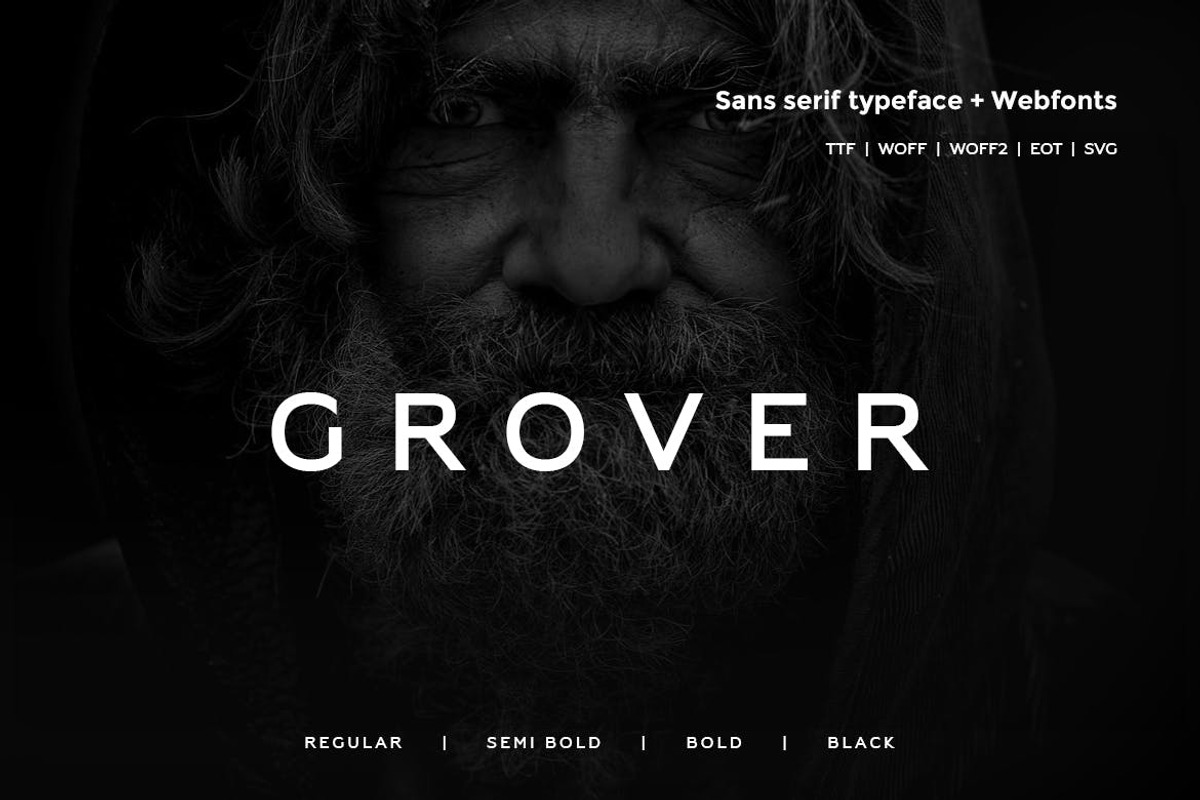
Grover - Typeface + WebFont
Grover Sans is a modern and Minimal Sans Serif typeface, Grover Sans can keep the minimalism at its level best and is a Perfect choice for Creative and Classic Typography Designs. The pack includes OTF, TTF and Web Fonts (all EOT, SVG, TTF, WOFF included).
Grover - Typeface + WebFont by Webhance Studio fits naturally into Branding, posters, packaging, typography.